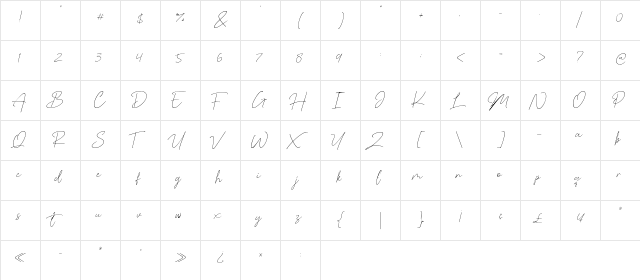
Baldive Regular
| Designer | Balpirick 2020 |
Design Context for Baldive Typeface
Baldive takes a measured approach to typography — its balanced proportions and neutral character make it a reliable workhorse for both digital and print work.